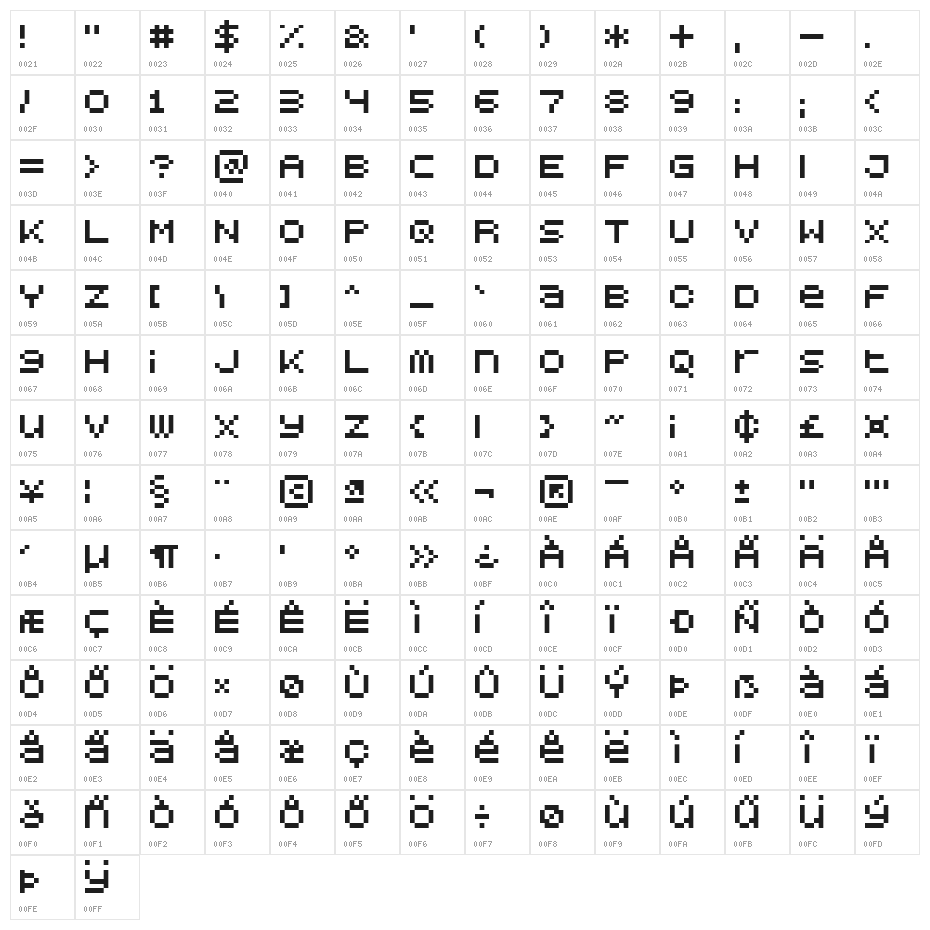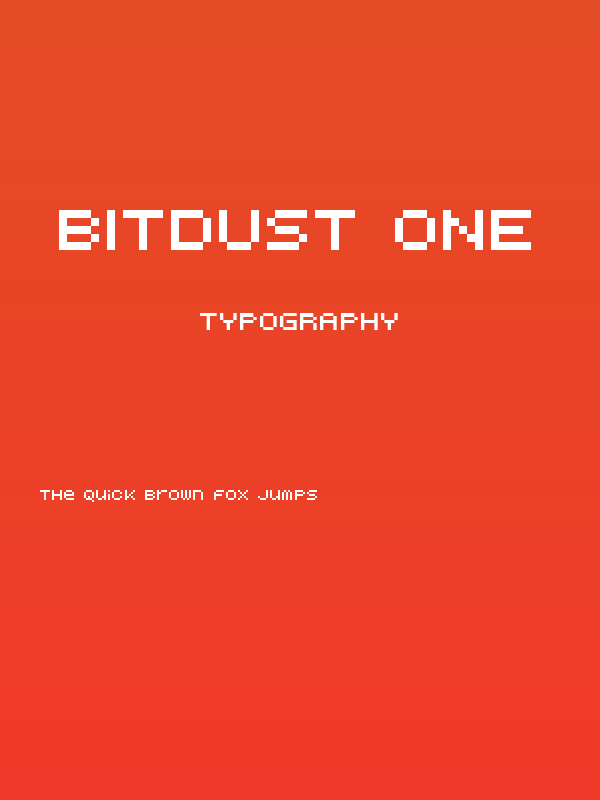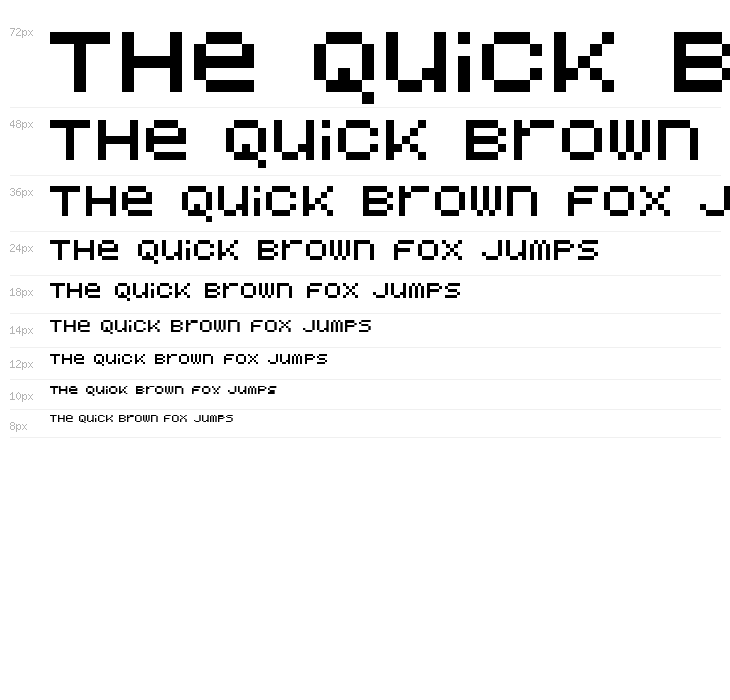
BitDust One Font
BitDust One Description
This font features a pixelated, blocky design reminiscent of early digital displays and retro video games. Each character is constructed with a grid-like precision, giving it a distinctly digital and geometric appearance. The uppercase and lowercase letters maintain a consistent width, contributing to a uniform look across the typeface. The numerals and special characters follow the same pixelated style, ensuring cohesion throughout. This font's nostalgic aesthetic is perfect for projects that aim to evoke a sense of vintage technology or retro gaming culture.
| Overall Style | Retro, Digital |
| Use Case | Logos, Posters, Digital Art |
| Proposed Projects | Ideal for retro video game graphics, digital art projects, tech-themed posters, and nostalgic branding. |